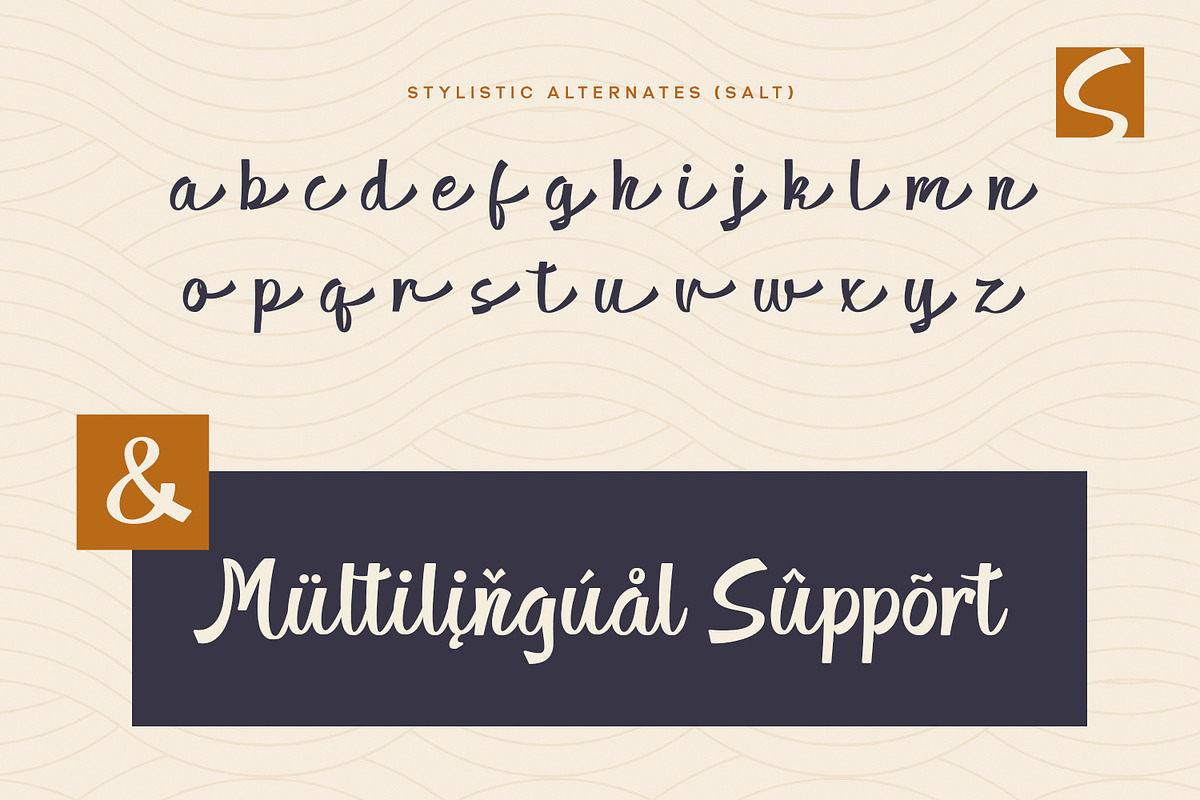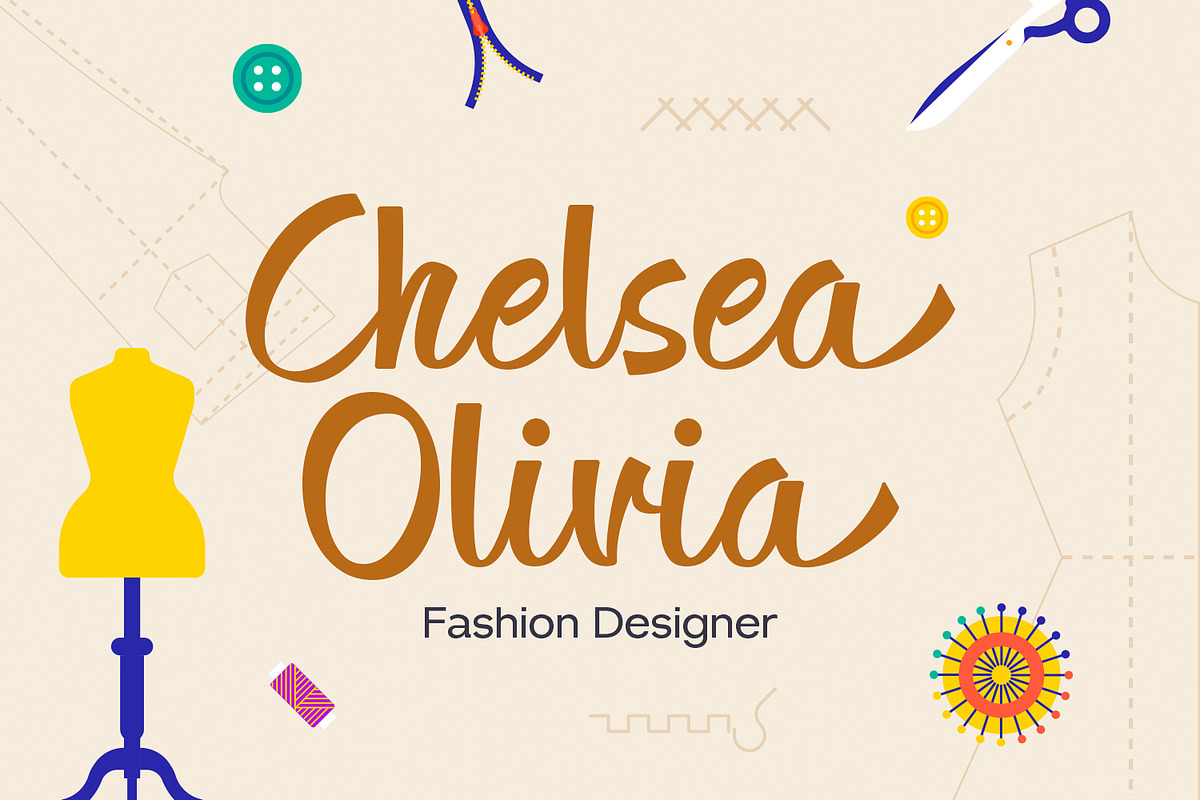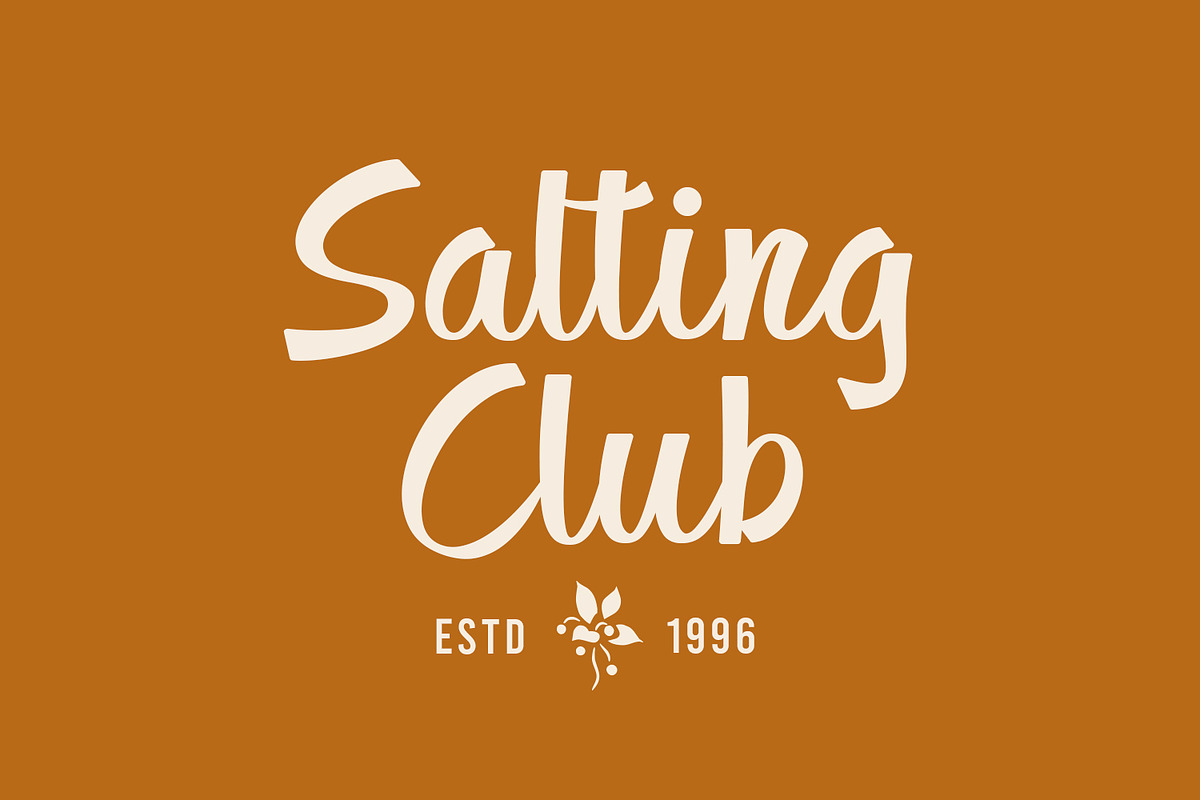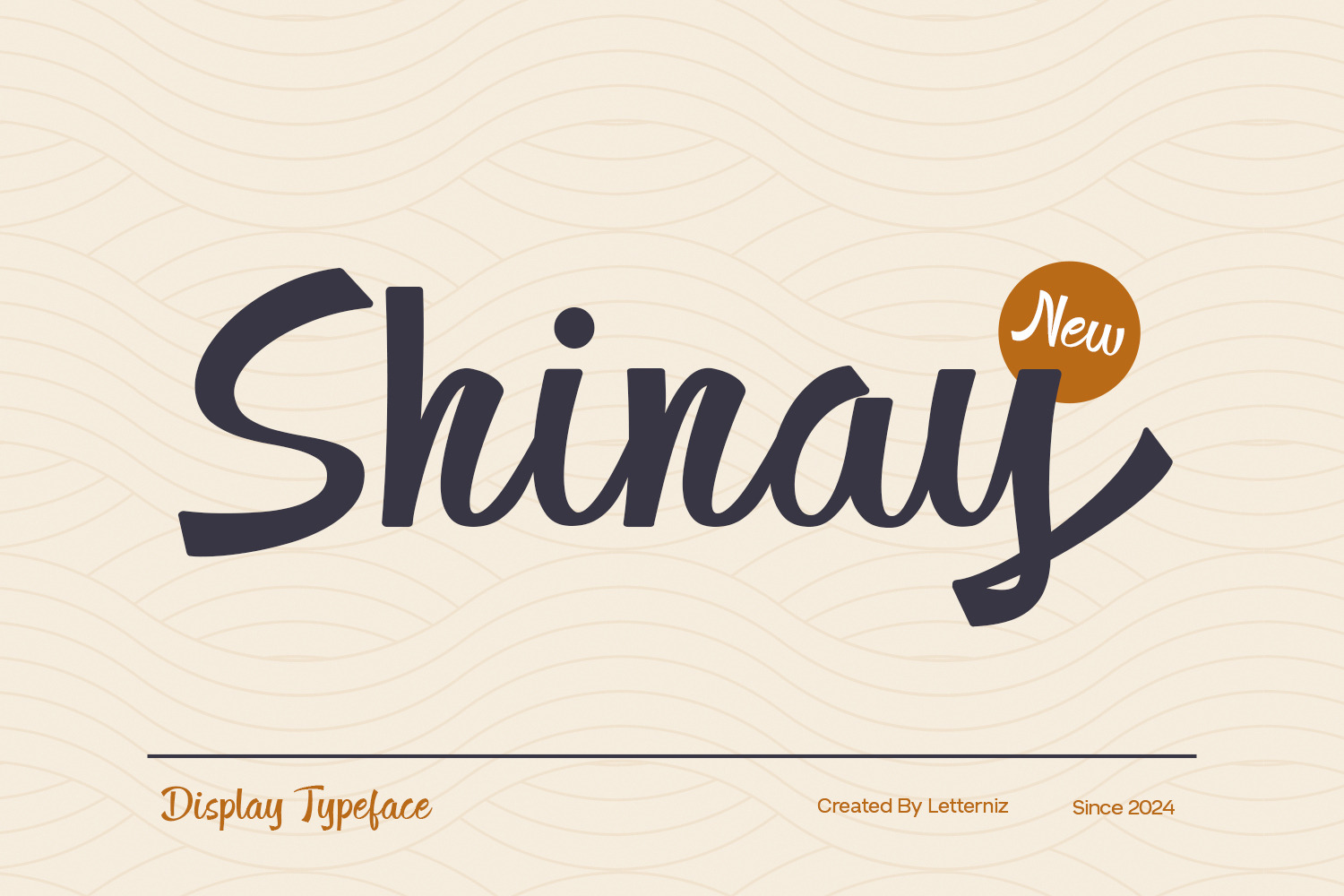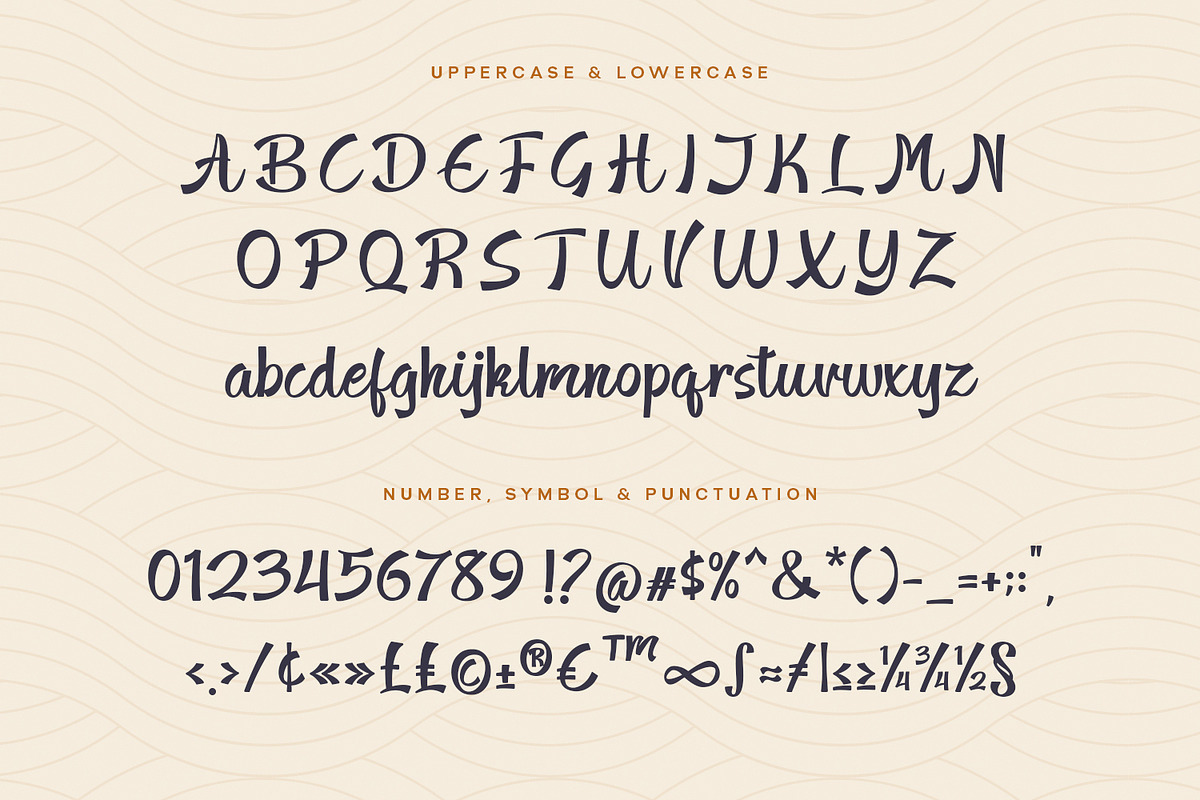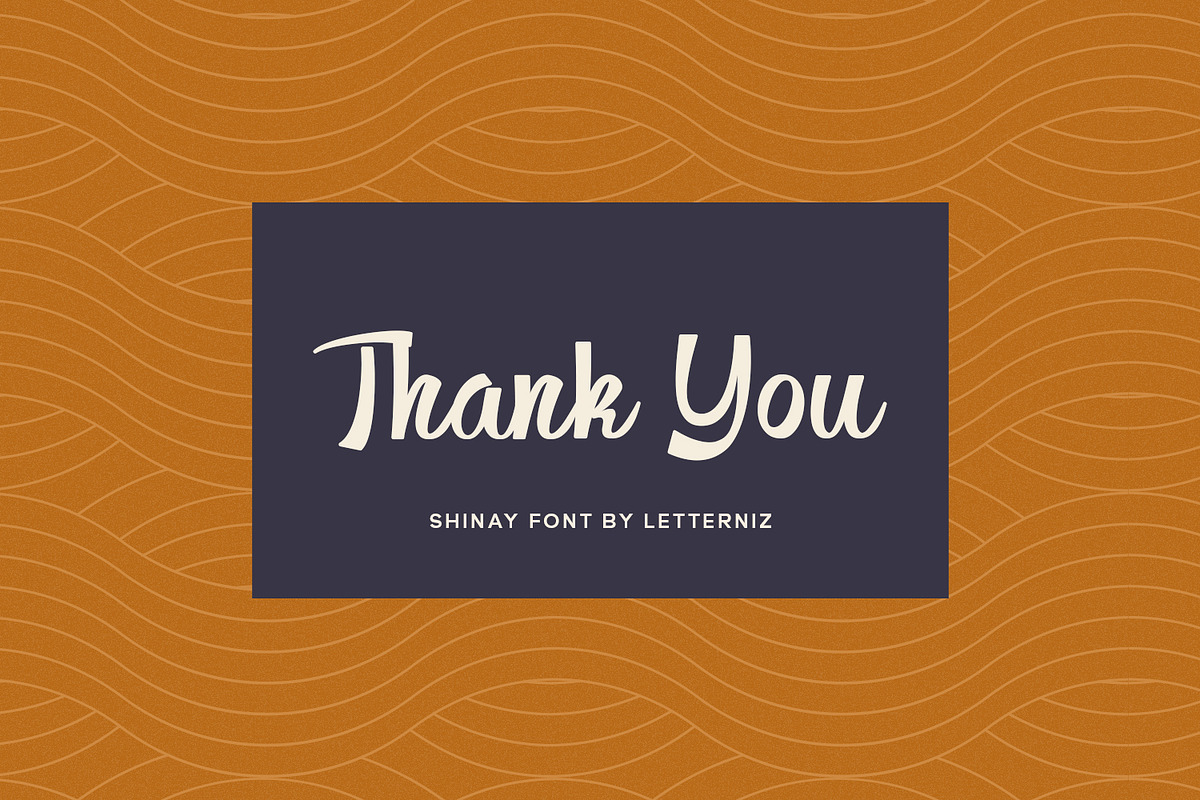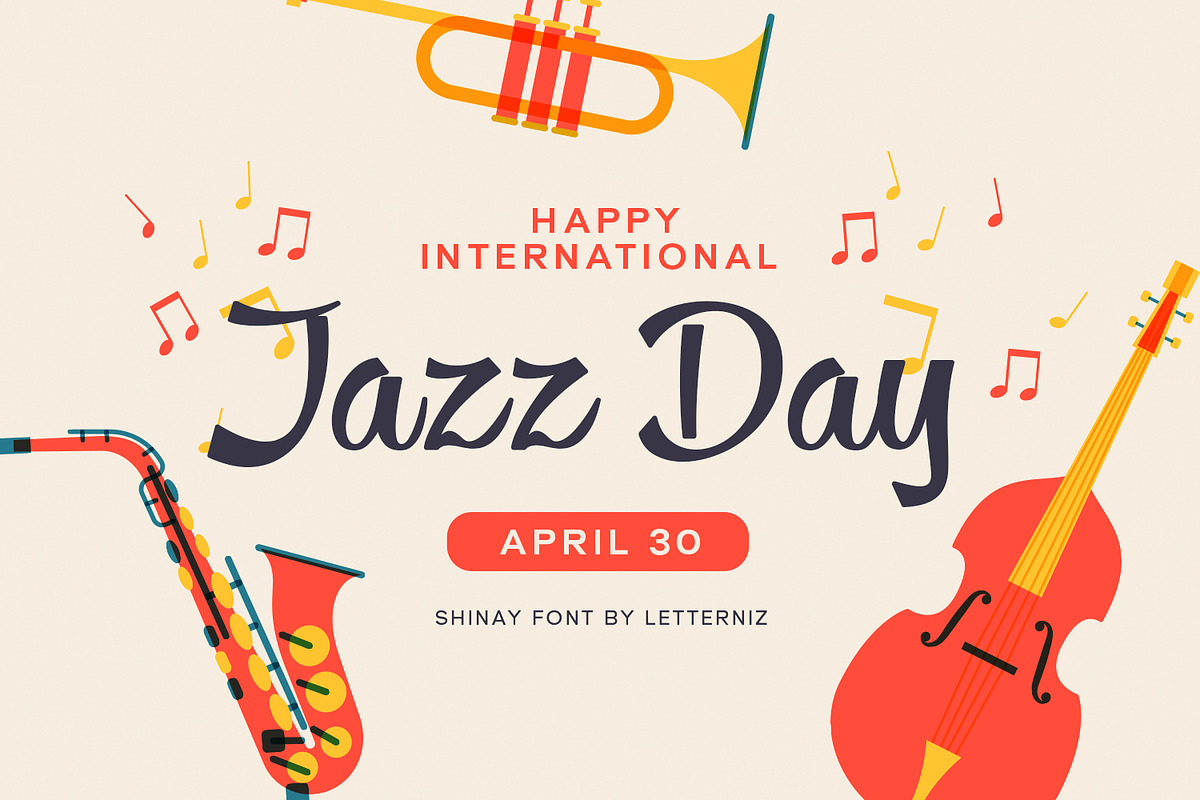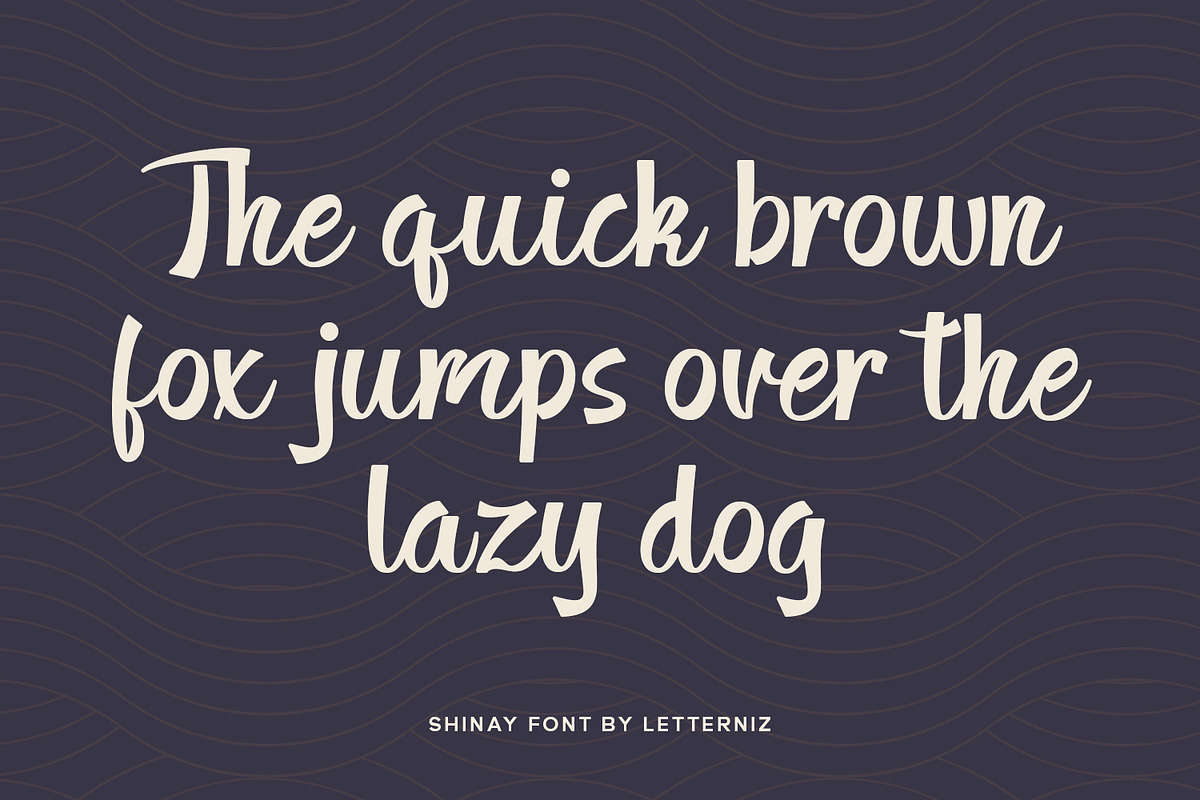
Shinay Display Font
Shinay is a script display font. Looks stunning on wedding invitations, thank you cards, quotes, greeting cards, logos, business cards and any other design that requires a handwritten touch